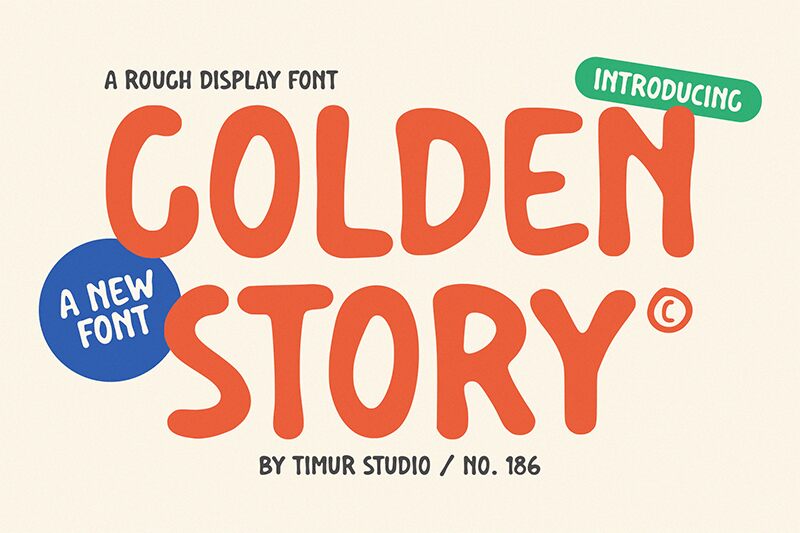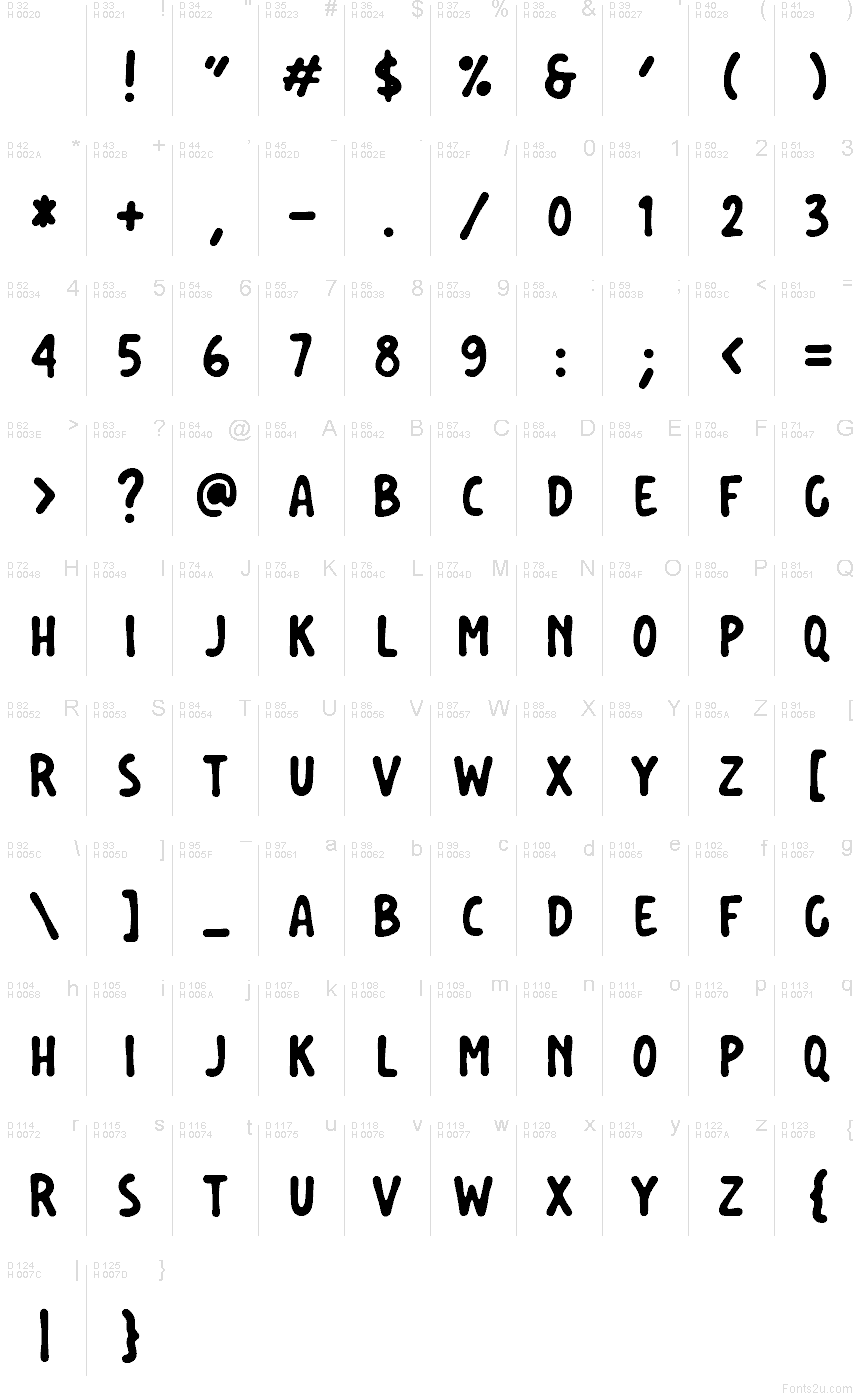
Golden Story
Golden Story font by Timur Type is a free decorative display typeface with the grit turned all the way up. Thick, hand-drawn strokes look like they’ve been brushed on a wall and left to weather in the sun, giving every word a scuffed, inky texture. The rounded shapes keep it friendly and legible, so you get attitude without losing clarity, even at larger sizes.
Using Golden Story, your headlines instantly feel like they belong on gig posters, album covers, craft beer labels, vintage badges, streetwear graphics, or bold social media promos. This free font thrives when you let it shout, so reserve it for titles and pair it with a clean sans-serif in smaller text to keep your layouts grounded and readable.